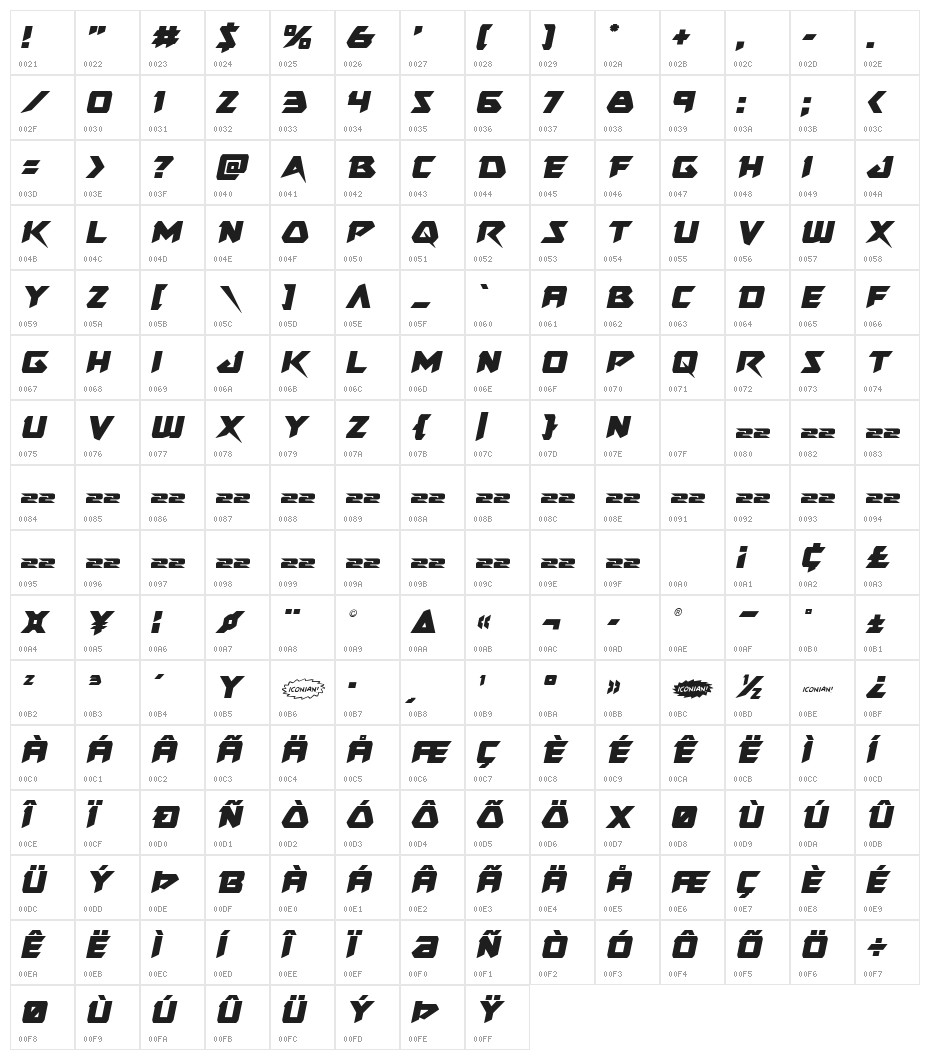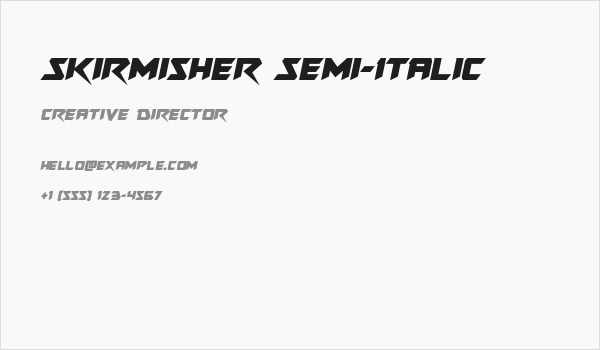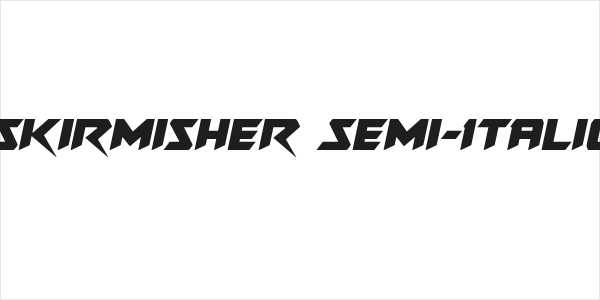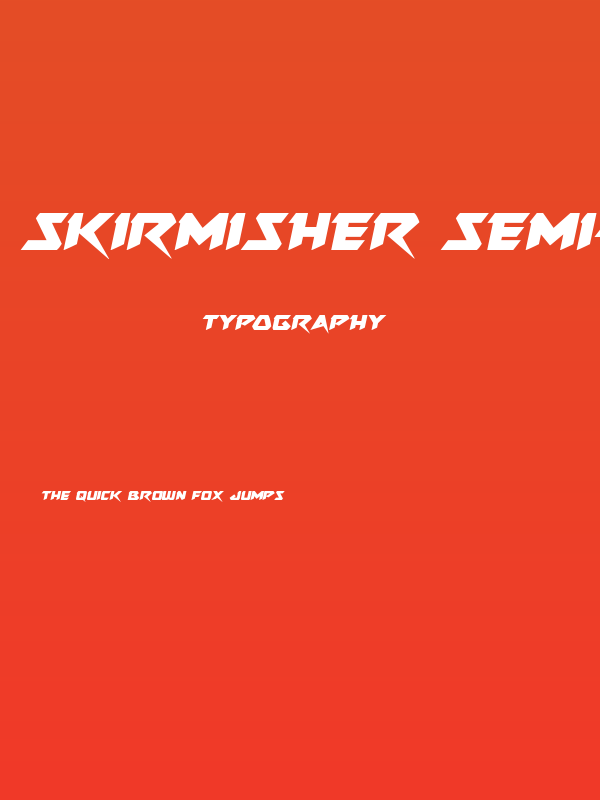
Skirmisher Semi-Italic Font
Skirmisher Semi-Italic Description
This font features a bold and dynamic design with sharp, angular edges and a distinct slant, giving it a semi-italic appearance. The characters are designed with a futuristic and aggressive style, making them stand out with their unique geometric shapes. The uppercase and lowercase letters maintain a consistent style, while the numbers and special characters complement the overall aesthetic. The font's boldness and angularity make it suitable for projects that require a strong visual impact.
| Proposed Projects | Ideal for video game titles, sports branding, action movie posters, and edgy graphic designs. |